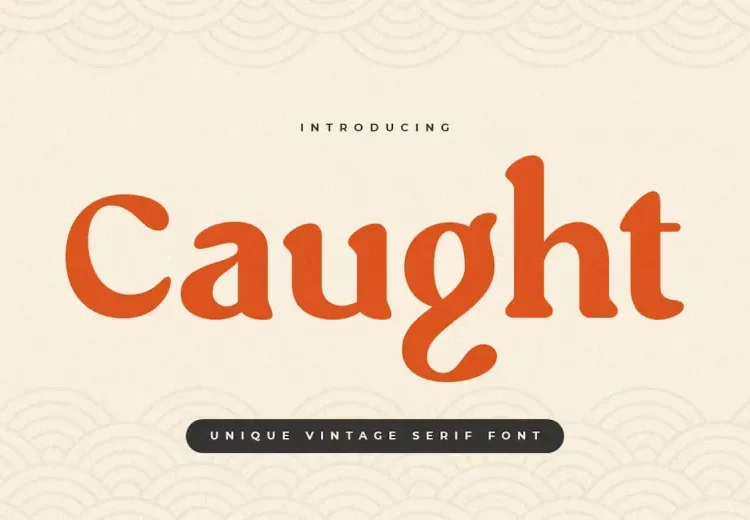
Caught Font
Caught is a meticulously crafted vintage serif font that exudes a classic charm, making it ideal for a wide range of design applications. Its timeless style is perfect for branding projects, logos, wedding designs, social media posts, advertisements, product packaging, labels, photography, watermarks, invitations, stationery, and more. The font combines aesthetic appeal with a high level of readability, ensuring that your design stands out while remaining clear and accessible.